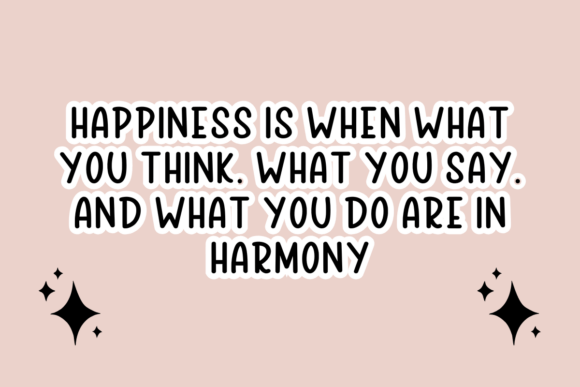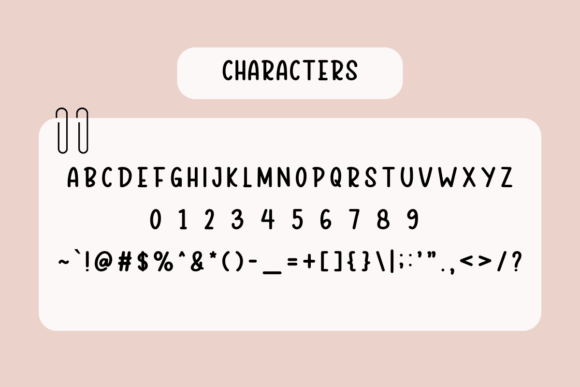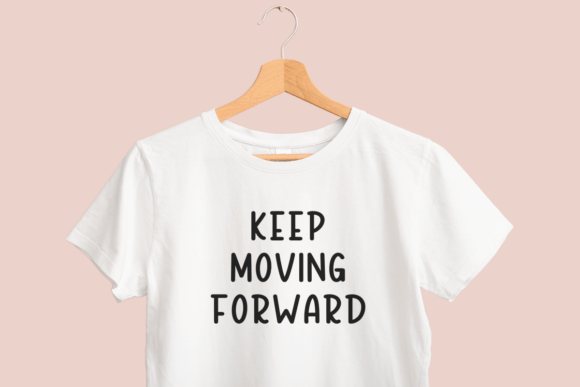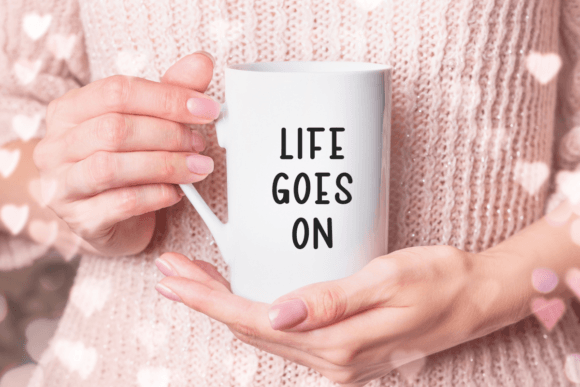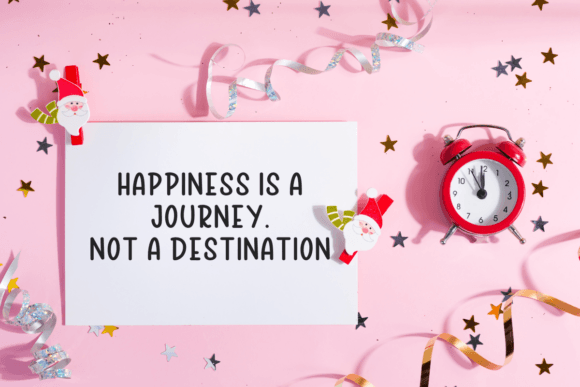
Discover the Playful Charm of Blush Bloom Font
Have you ever been in the middle of a design project, and suddenly, you’re stuck on finding the perfect font? I recall a recent experience where I was working on a fun project for a client’s baby shower invitation. The design was almost complete, but something was missing – a font that could bring a playful yet elegant touch to the invitation. That’s when I stumbled upon the Blush Bloom font, and it instantly became the perfect fit.
A Personal Review of Blush Bloom Font
As a designer, I’m always on the lookout for fonts that can add a unique touch to my projects. Here’s my honest review of Blush Bloom:
- ✨ Playful and Friendly Vibe: Blush Bloom has a cheerful, sans-serif design that instantly adds a fun and friendly touch to any project.
- ✅ Versatility: This font is perfect for a wide range of projects, including memos, journals, notes, planners, greeting cards, invitations, scrapbooks, and more.
- 💡 Ease of Use: The font is easy to read and works well in both digital and print formats.
- 🎨 OpenType Features: Blush Bloom comes with a range of OpenType features, including glyphs and stylistic alternates, which allow for creative freedom and customization.
- 🤔 Limited Formality: While Blush Bloom is perfect for casual and friendly designs, it may not be suitable for more formal projects that require a professional tone.
- ⚠️ Legibility at Small Sizes: Like many script and sans-serif fonts, Blush Bloom may lose legibility when used at very small font sizes.
The Backstory of Blush Bloom
Blush Bloom was designed with the intention of creating a font that embodies warmth, friendliness, and approachability. The designer aimed to craft a typeface that could be used across various platforms and projects, from educational materials to personal planners, without losing its charm. The result is a font that feels both modern and timeless, making it a versatile addition to any designer’s toolkit.
| Does Blush Bloom support OpenType features? | Yes, Blush Bloom comes with a range of OpenType features, including glyphs and stylistic alternates, allowing for greater customization. |
Blush Bloom is more than just a font – it’s a design companion that can elevate your projects with its playful and friendly vibe. Whether you’re a designer, crafter, or creative hobbyist, this font is sure to become a favorite in your toolkit.